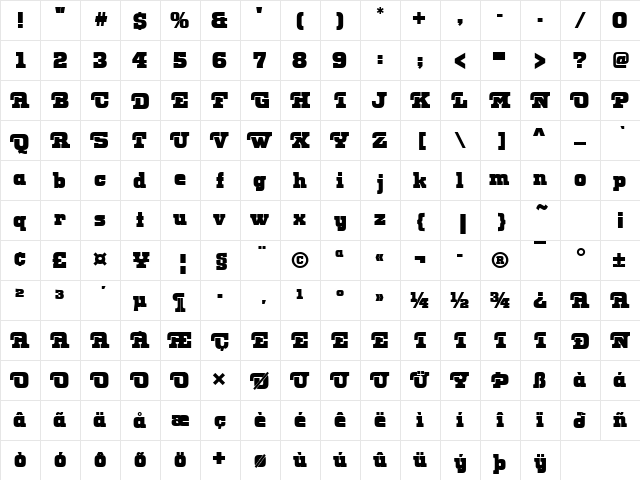
Odin Becker Poster Regular
Design Context for Odin Becker Poster Typeface
Odin Becker Poster takes a measured approach to typography — its balanced proportions and neutral character make it a reliable workhorse for both digital and print work.